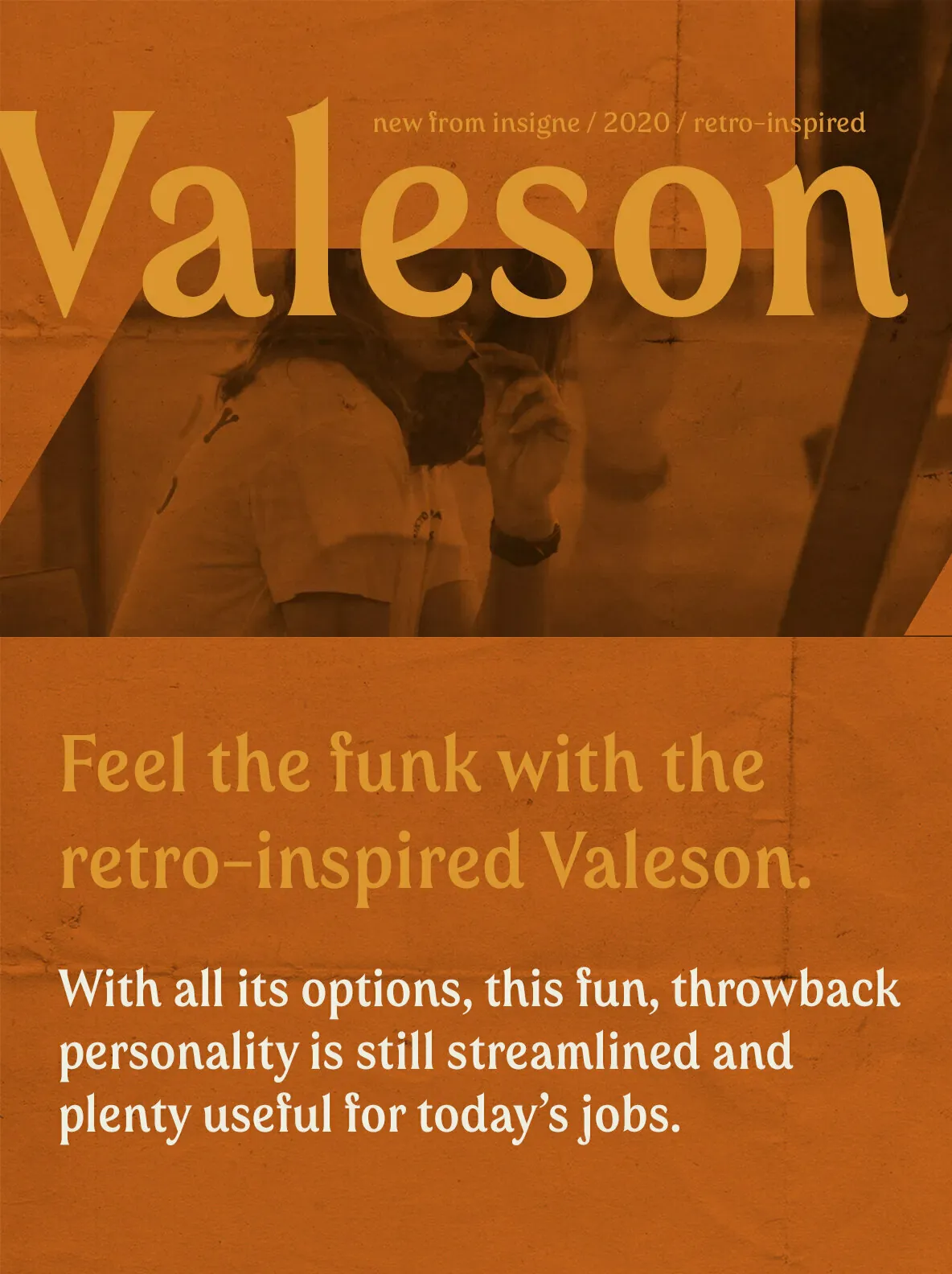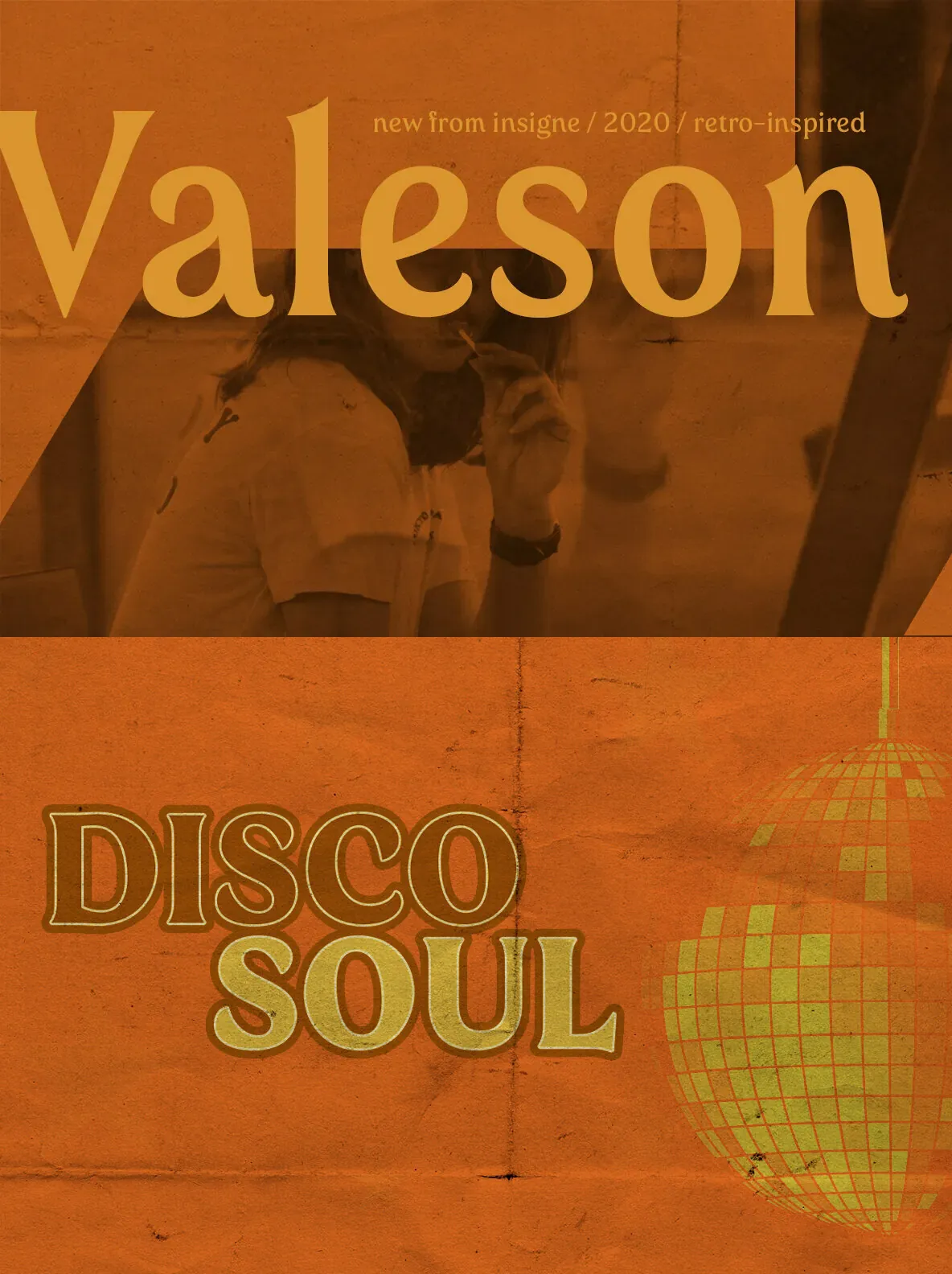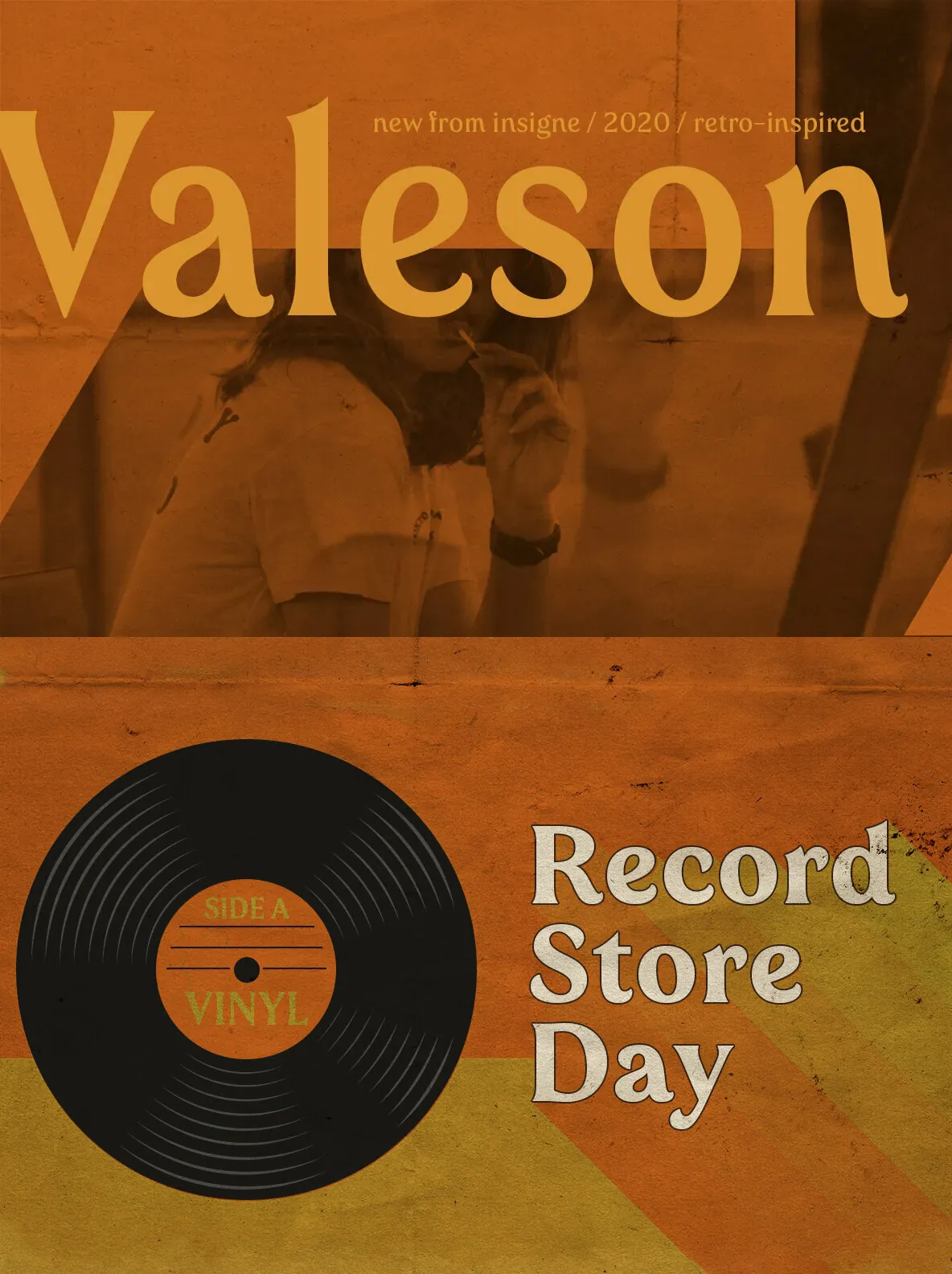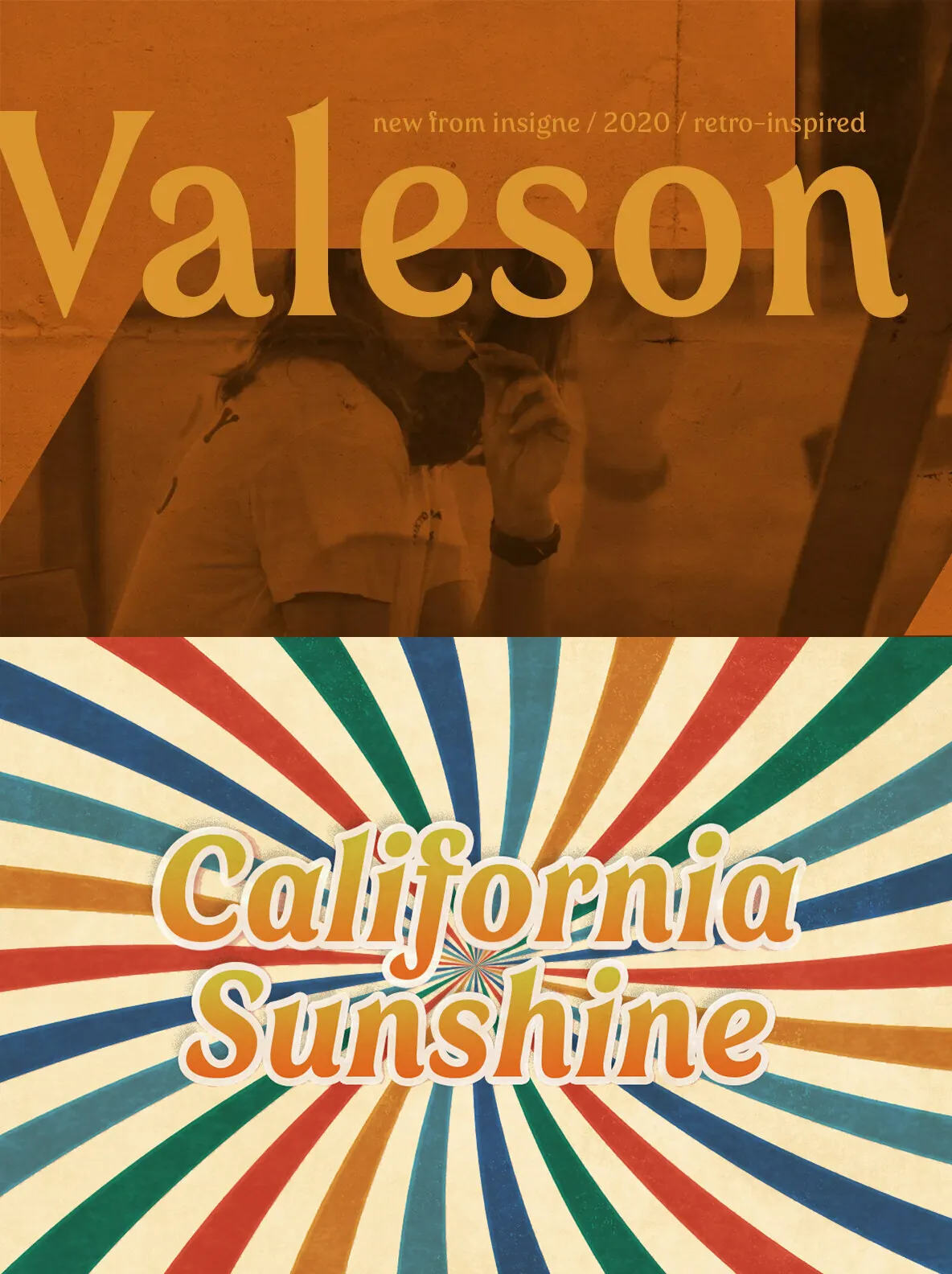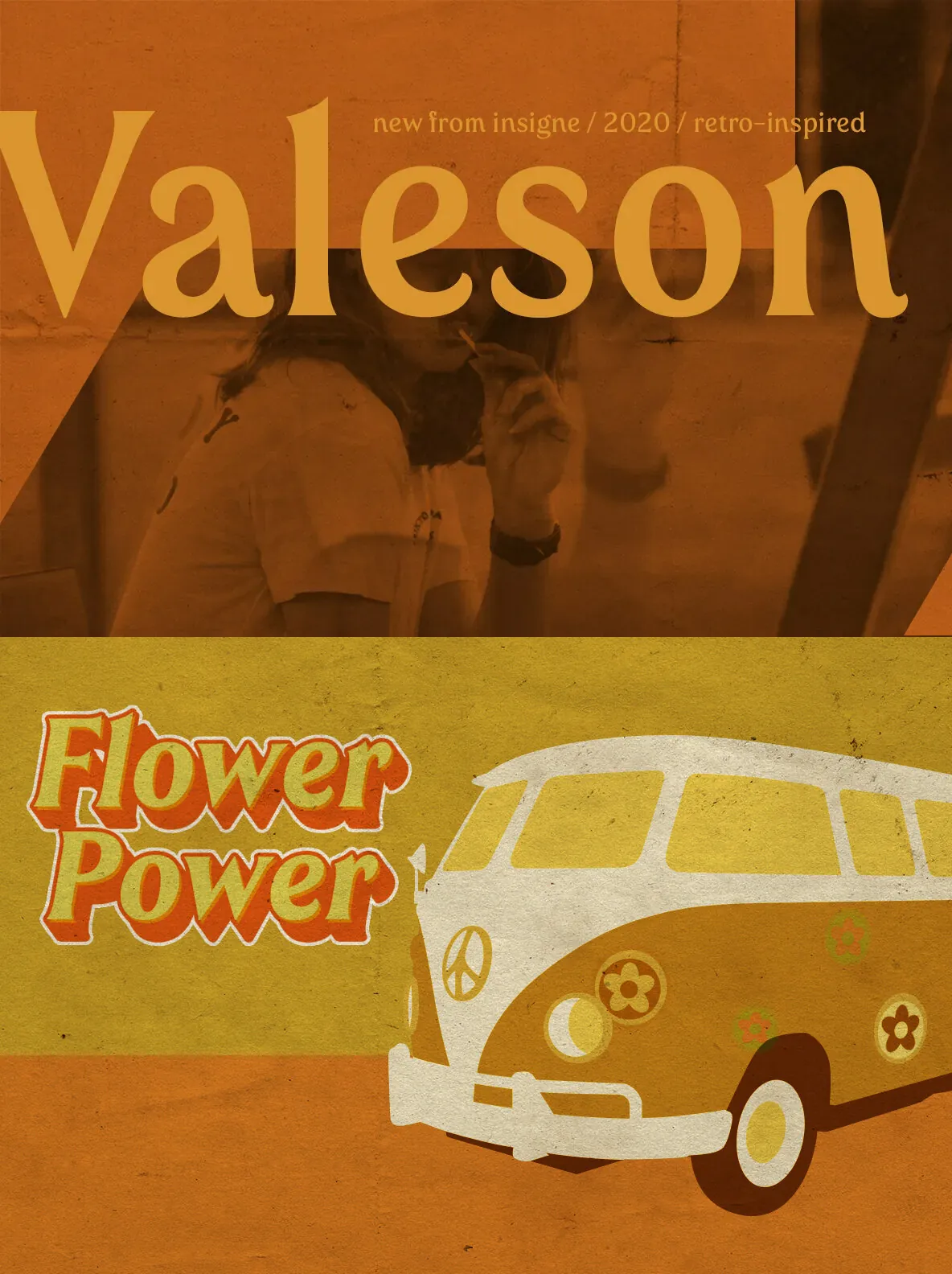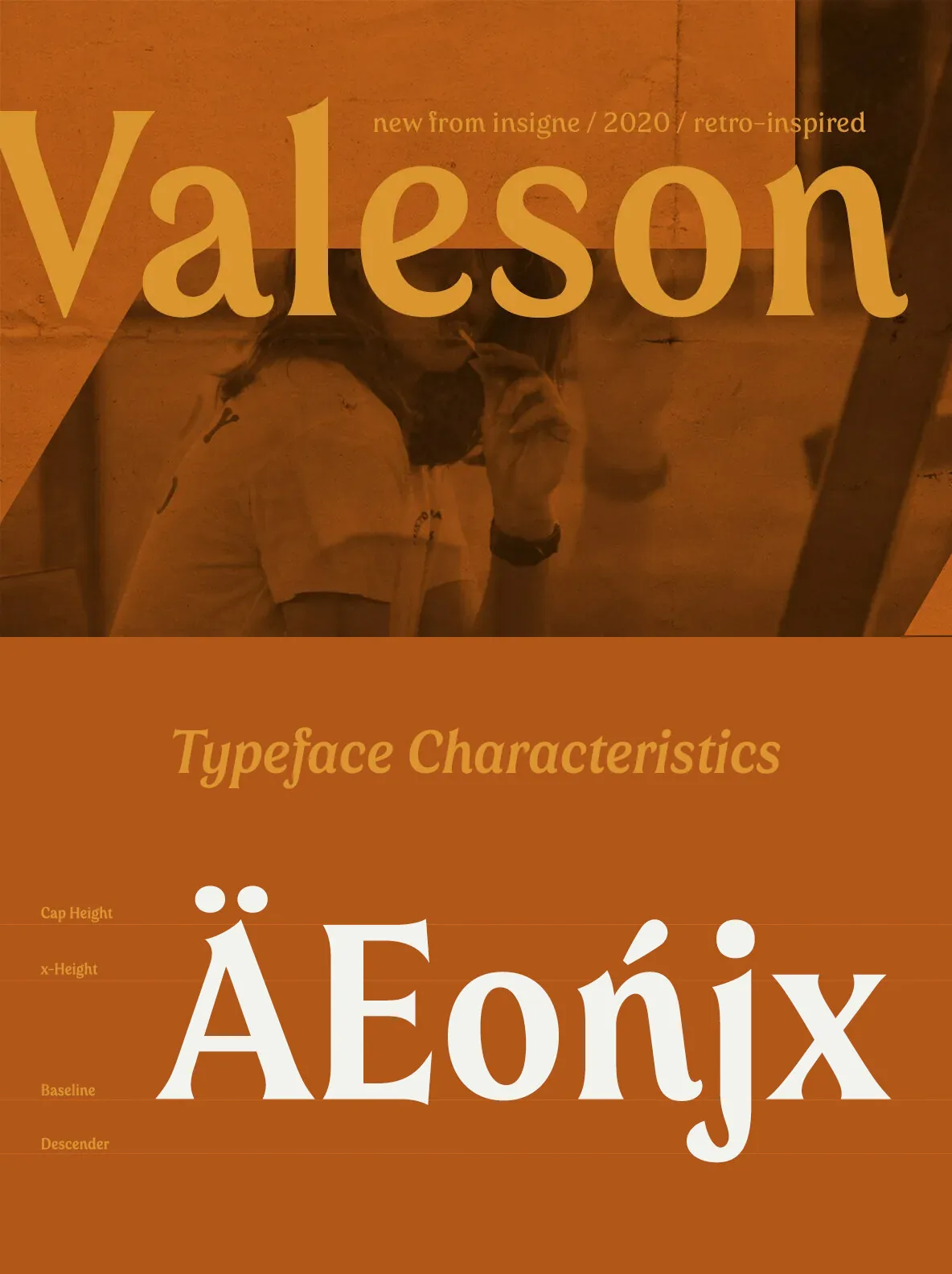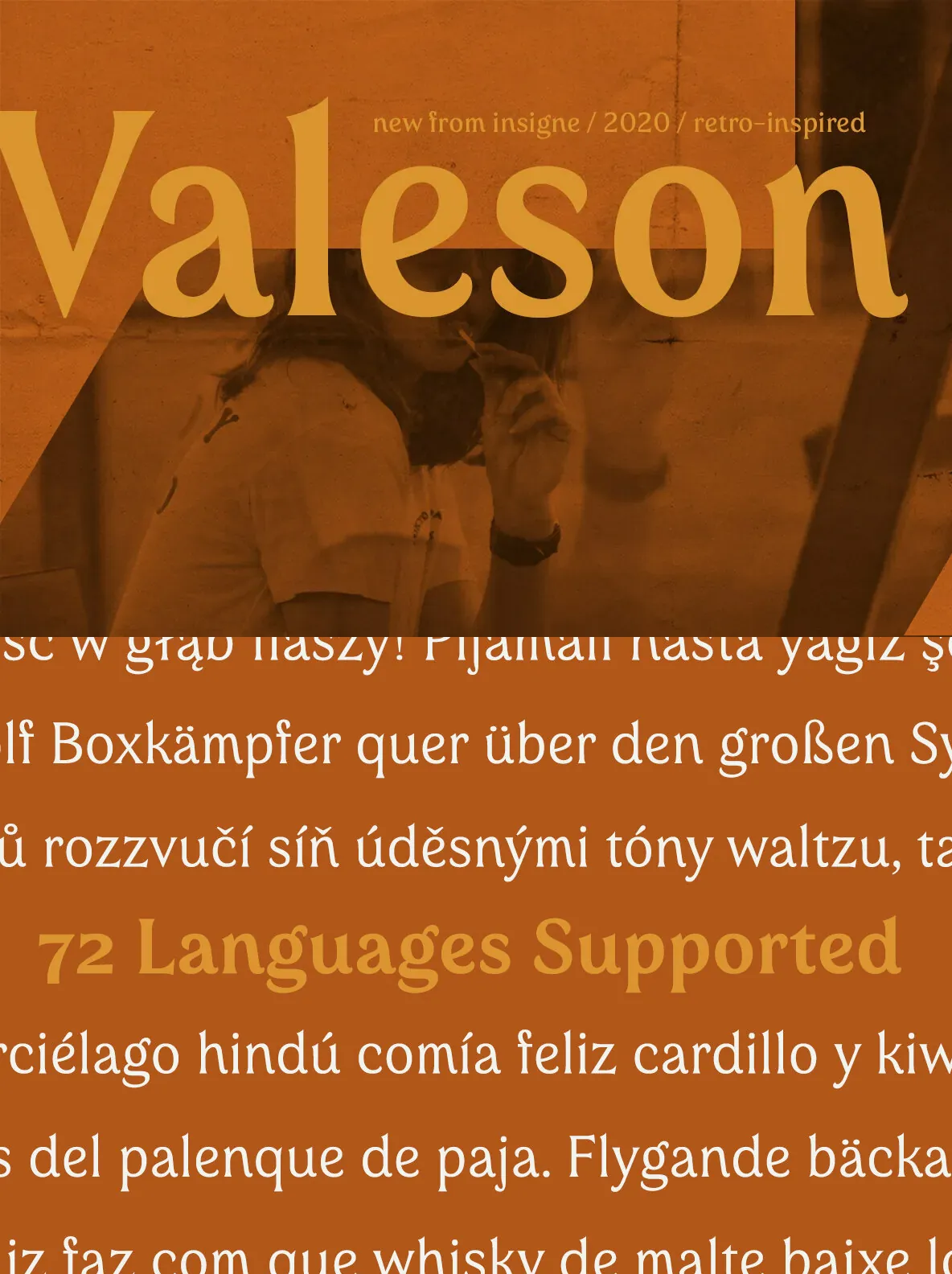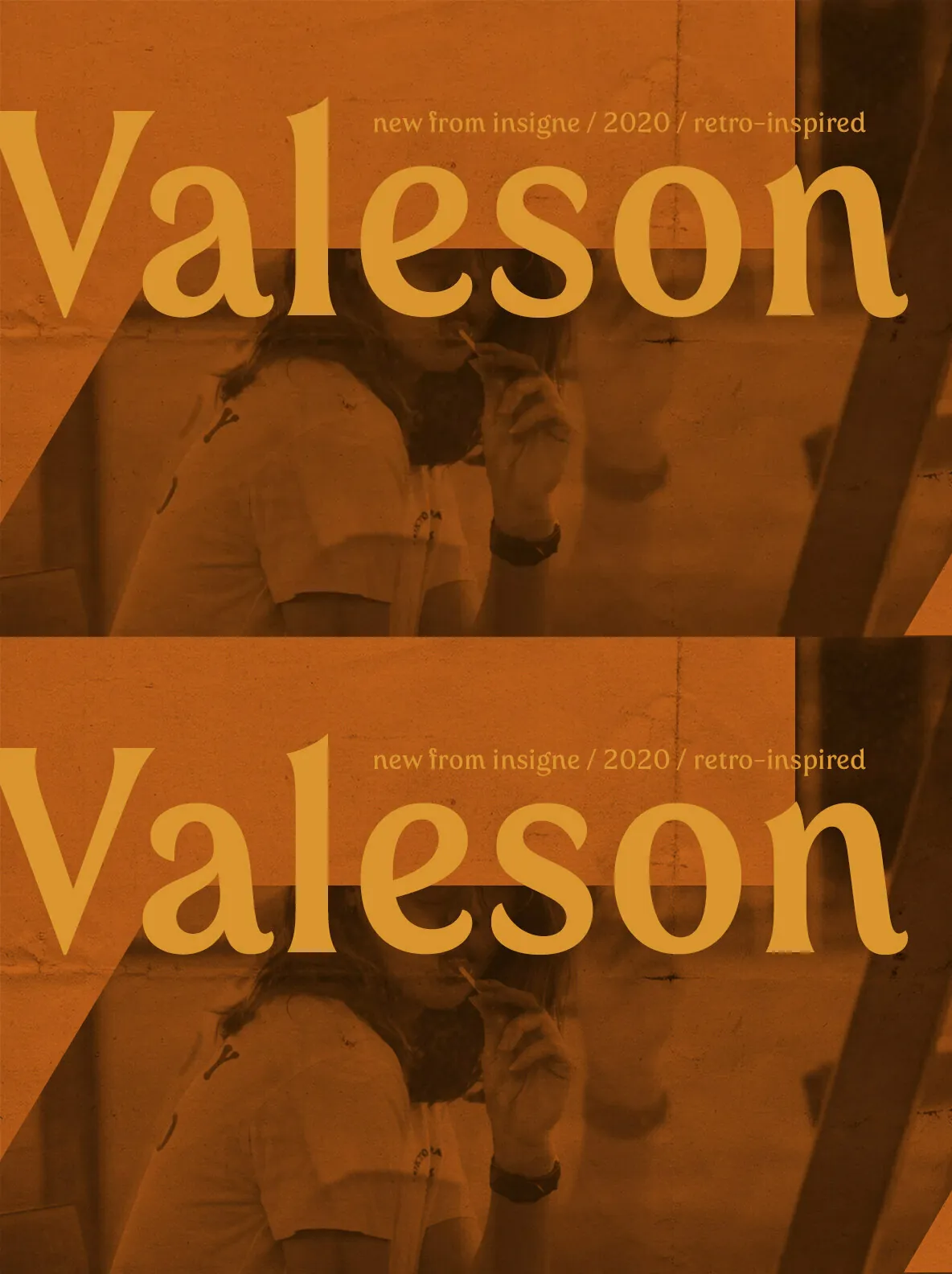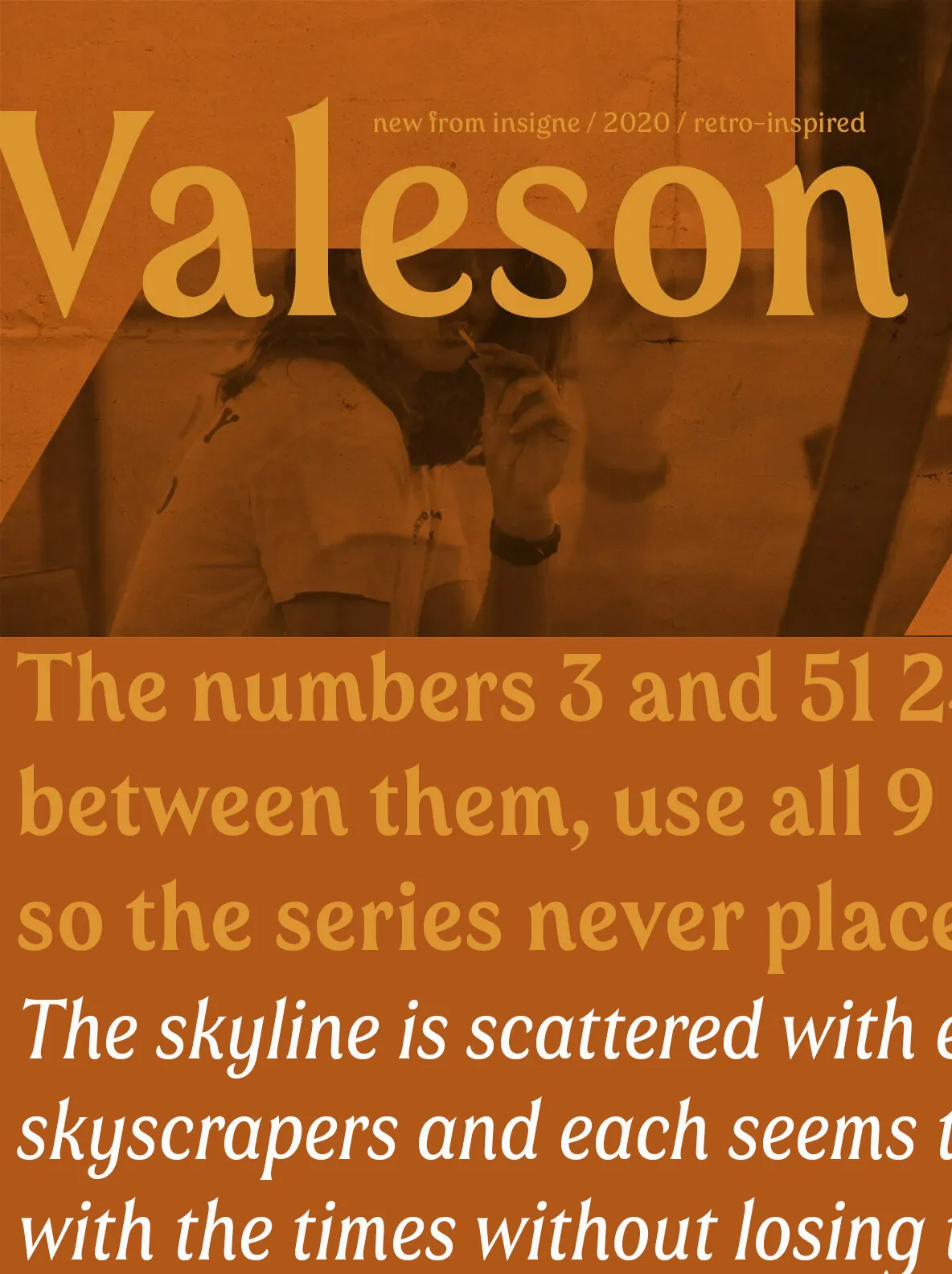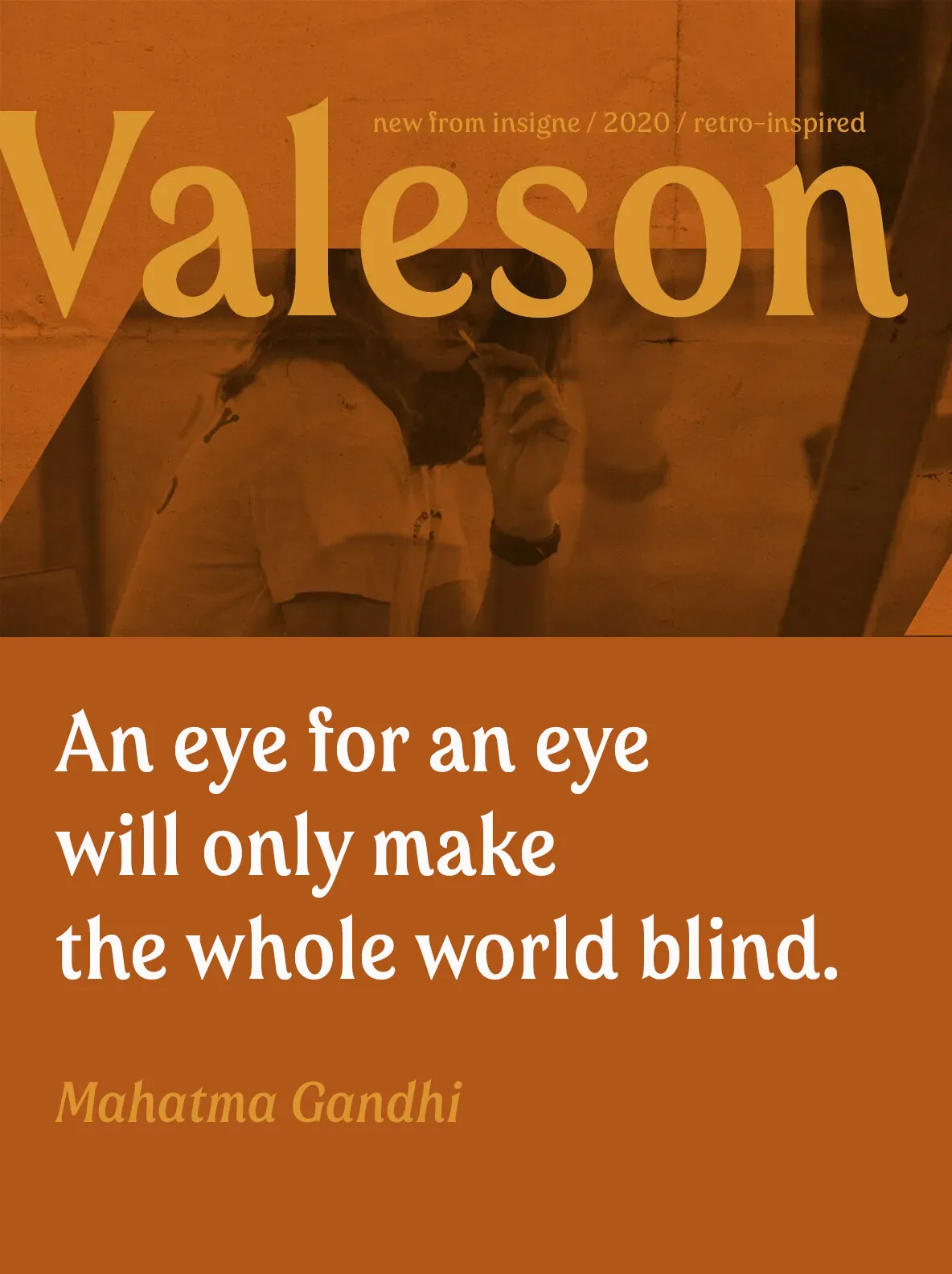
Valeson — Retro Groove, Modern Control
Feel the funk with the retro-inspired Valeson. This groovy mix of the ’70s and ’80s brings an upbeat rhythm that makes projects feel alive and ready to boogie. Valeson stays playful, with a swashy, calligraphic twist that adds movement and character to wordmarks, posters, and expressive typography.
Push it to the max with plenty of weights. Denser weights are brawny and robust, fantastic for headlines, while medium weights are swell for short bits of text. With all its options, this fun, throwback personality still feels streamlined and useful for today’s jobs—built for designers who want retro energy without losing clarity.